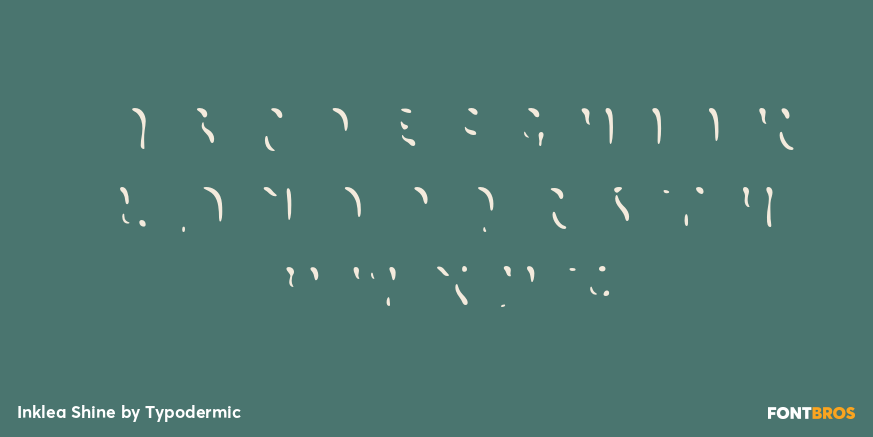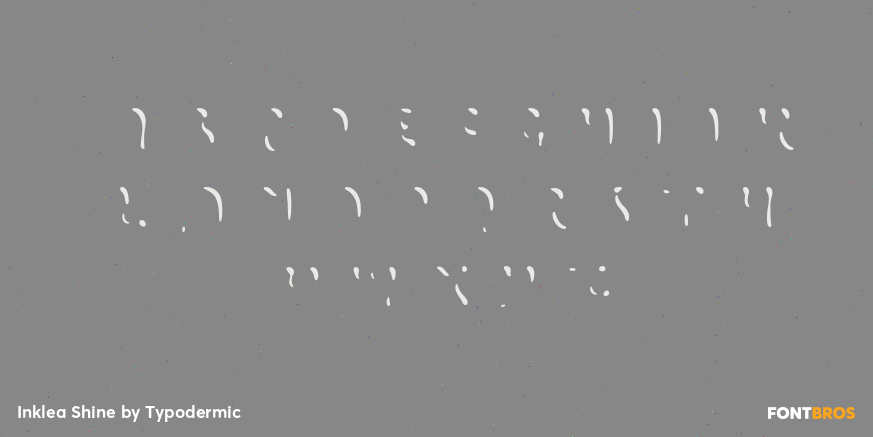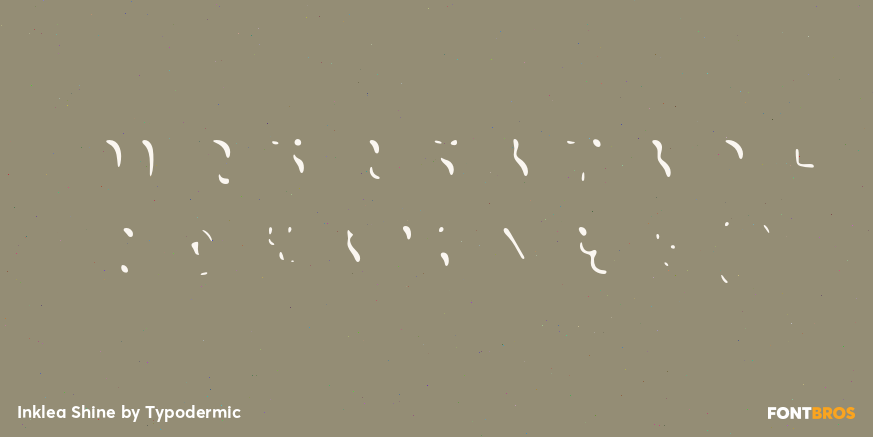
Inklea Shine
Inklea Shine is the highlight layer of the Inklea system rather than a conventional set of filled letters. Its glyphs contain only curved reflective marks positioned to match Inklea Solid and share Solid's spacing. Set identical text in Shine over Solid and give the overlay a contrasting color to add a controllable gleam without redrawing the lettering. This keeps the family's broad, counterless silhouettes intact while separating the surface effect from the base.
Use Inklea Shine with Solid for two-color candy wrappers, frozen-dessert cartons, bubble-bath labels, slime kits and glossy stickers, where the highlights can be recolored independently or omitted for a flatter version. It also suits layered print and digital artwork built from aligned color elements. Because Shine contains only highlight shapes, it works as a companion layer at generous sizes, not as readable lettering by itself.